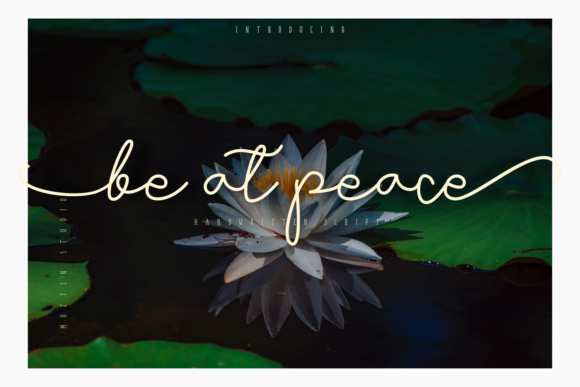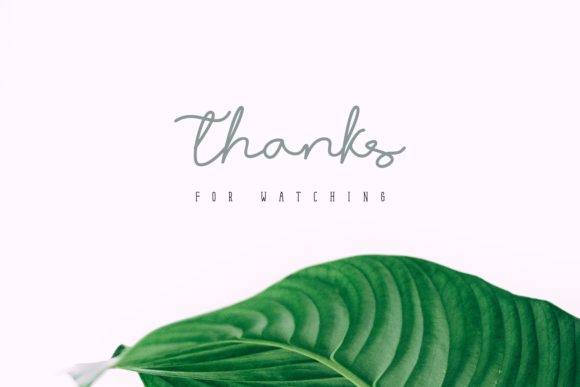
About Be at Peace Font
Be at Peace is a sweet and natural handwritten font. Not too thin and not too thick, balanced and varied, Be at Peace was designed to enhance the beauty of your projects.